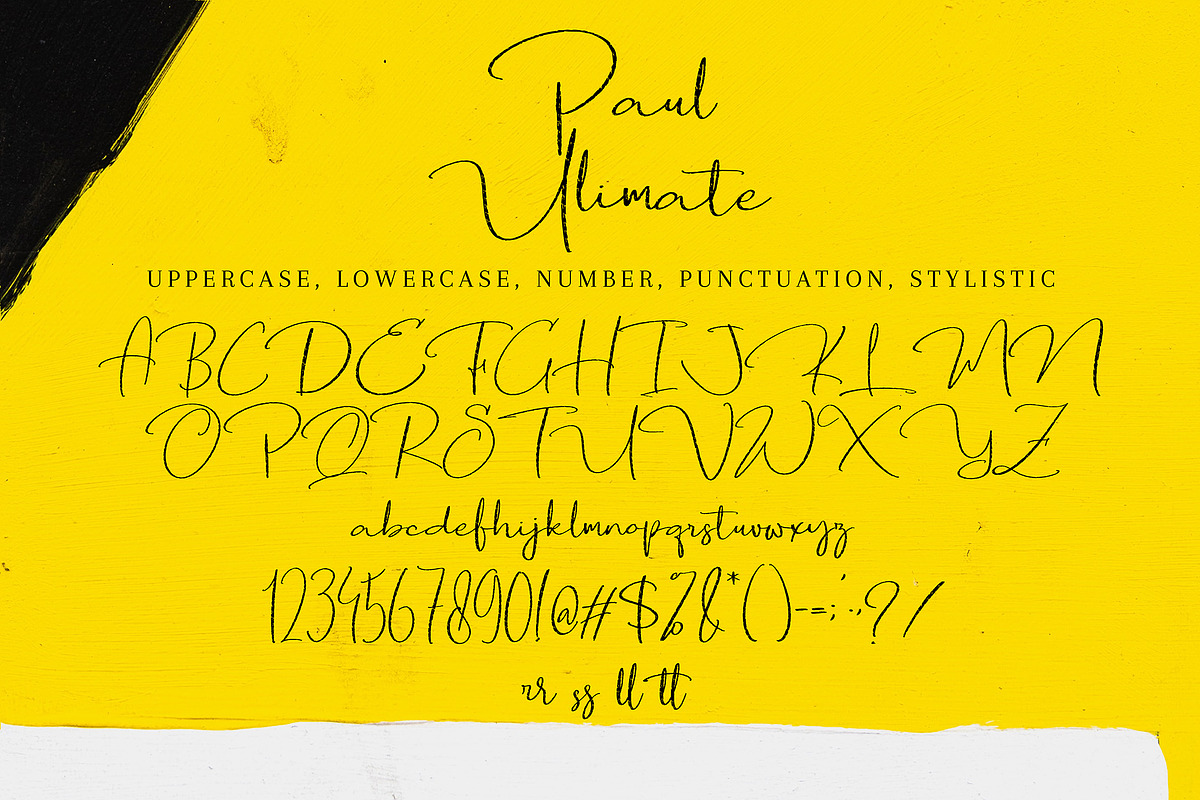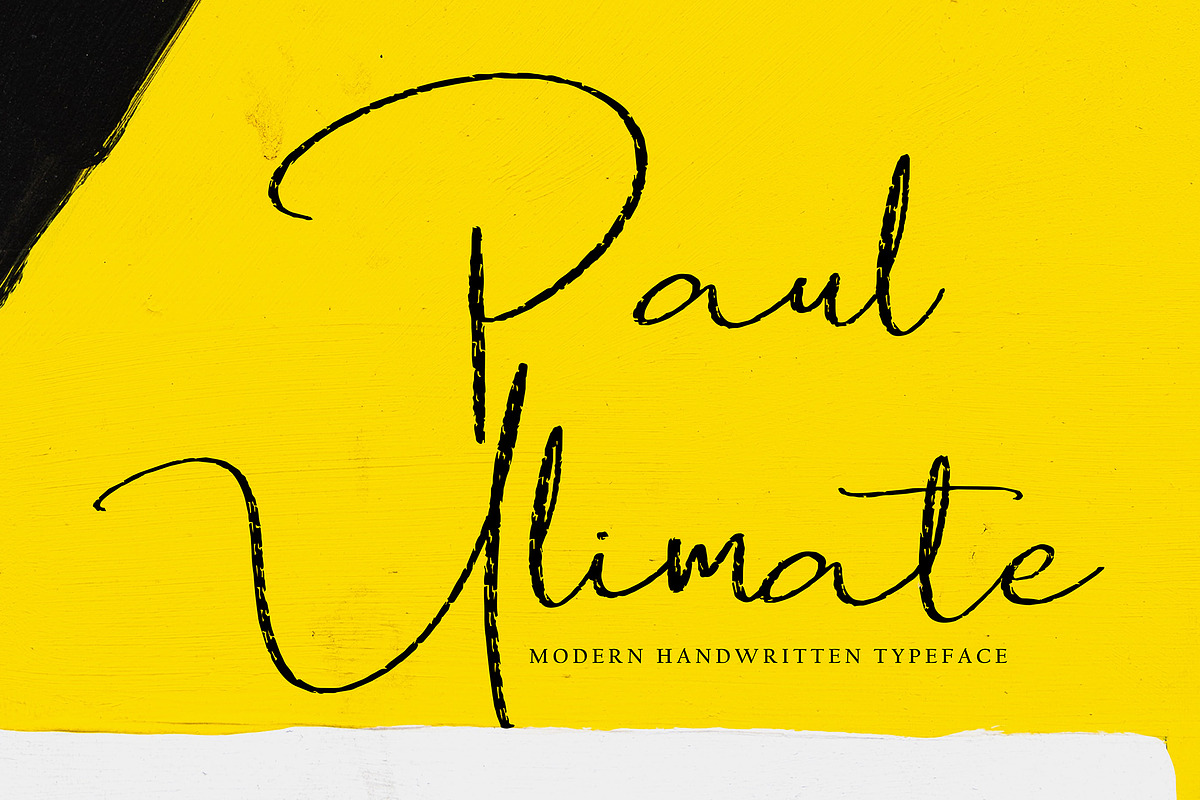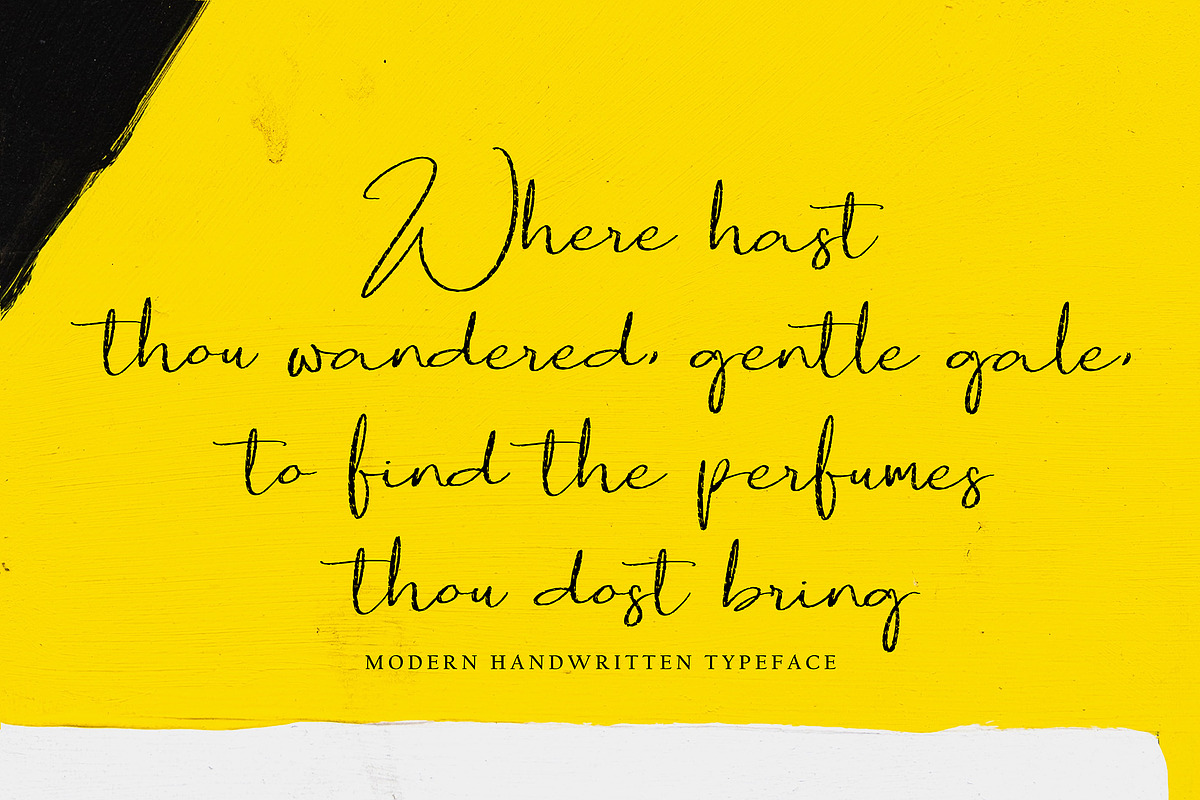
Paul Ulimate
Paul Ulimate with new style, this font will perfect for many different project ex: quotes, logo, blog header, poster, banding, letter, invitation, stationery, etc...